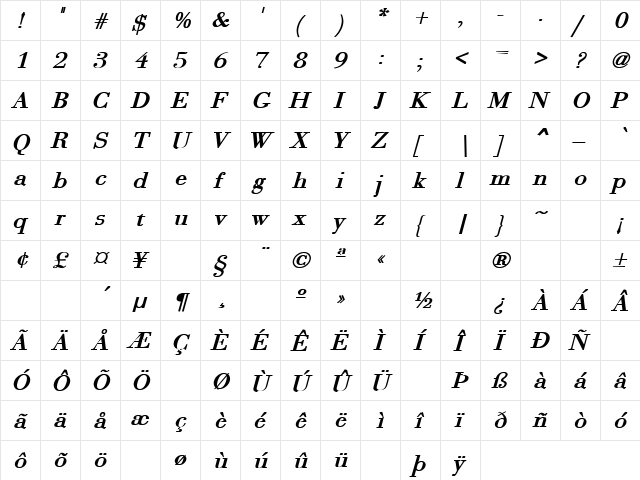
Any Color 12 Bold Italic
Design Context for Any Color 12 Typeface
Any Color 12 is a composed and adaptable typeface that performs quietly and consistently across a wide range of design contexts. Its italic angle brings a sense of urgency and motion to the letterforms. Its bold stroke weight gives it real presence on the page.
Pro Tip: Try Any Color 12 for annotation and caption copy alongside an upright companion — the contrast in angle creates a dynamic but ordered typographic system.